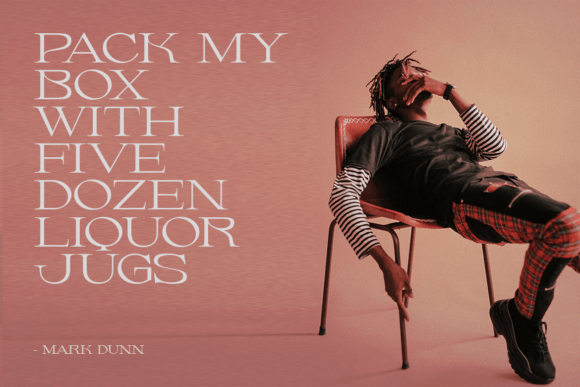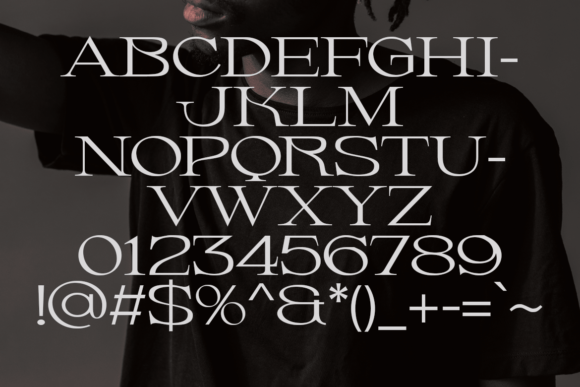
Unleash Your Creativity with Broman: The Edgy Serif Font
Are you tired of using the same old fonts for your designs? Do you want to add a touch of wildness and experimentation to your work? Look no further than Broman, the edgy serif font that’s inspired by the latest music chart album artwork. In this article, we’ll dive into the world of Broman and explore its features, uses, and benefits for designers and crafters.
What is Broman?
Broman is a unique and bold serif font that’s designed to make a statement. Its edgy and rugged aesthetic is reminiscent of modern music chart album artwork, making it perfect for designers who want to add a touch of attitude to their work. Whether you’re creating a poster, album artwork, or branding materials, Broman is the perfect choice for those who want to stand out from the crowd.
Key Features of Broman
So, what makes Broman so special? Here are some of its key features:
- Edgy and bold design: Broman’s serif design is bold and edgy, making it perfect for designs that require a touch of attitude.
- Inspired by music chart album artwork: Broman’s design is inspired by the latest music chart album artwork, giving it a modern and trendy feel.
- Perfect for experimental designs: Broman is designed to be experimental and wild, making it perfect for designers who want to push the boundaries of creativity.
- Multipurpose: Broman can be used for a variety of design projects, including posters, album artwork, cover artwork, music videos, fashion, branding, magazines, lookbooks, photography projects, logos, and more.
Uses of Broman
Broman is a versatile font that can be used for a wide range of design projects. Here are some ideas to get you started:
- Poster design: Use Broman to create bold and eye-catching posters that grab attention.
- Album artwork: Create stunning album artwork with Broman’s edgy and bold design.
- Cover artwork: Use Broman to create eye-catching cover artwork for books, magazines, and more.
- Music video: Add a touch of attitude to your music video with Broman’s bold and edgy design.
- Fashion branding: Use Broman to create bold and stylish branding materials for your fashion brand.
- Magazine design: Create a bold and edgy magazine design with Broman’s unique serif font.
- Lookbook: Use Broman to create a stylish and eye-catching lookbook for your fashion brand.
- Photography project: Add a touch of attitude to your photography project with Broman’s bold and edgy design.
- Logo design: Use Broman to create a bold and memorable logo for your brand.
Benefits of Using Broman
So, why should you use Broman for your design projects? Here are some benefits:
- Stand out from the crowd: Broman’s unique and bold design will help you stand out from the crowd and grab attention.
- Add attitude to your design: Broman’s edgy and bold design will add a touch of attitude to your design, making it perfect for brands that want to make a statement.
- Perfect for experimental designs: Broman is designed to be experimental and wild, making it perfect for designers who want to push the boundaries of creativity.
- Multipurpose: Broman can be used for a variety of design projects, making it a great addition to your font library.
In conclusion, Broman is a unique and bold serif font that’s perfect for designers who want to add a touch of wildness and experimentation to their work. Its edgy and rugged aesthetic is inspired by modern music chart album artwork, making it perfect for a wide range of design projects. Whether you’re creating a poster, album artwork, or branding materials, Broman is the perfect choice for those who want to stand out from the crowd. So, let’s get wild and experimental with Broman – download it today and unleash your creativity!